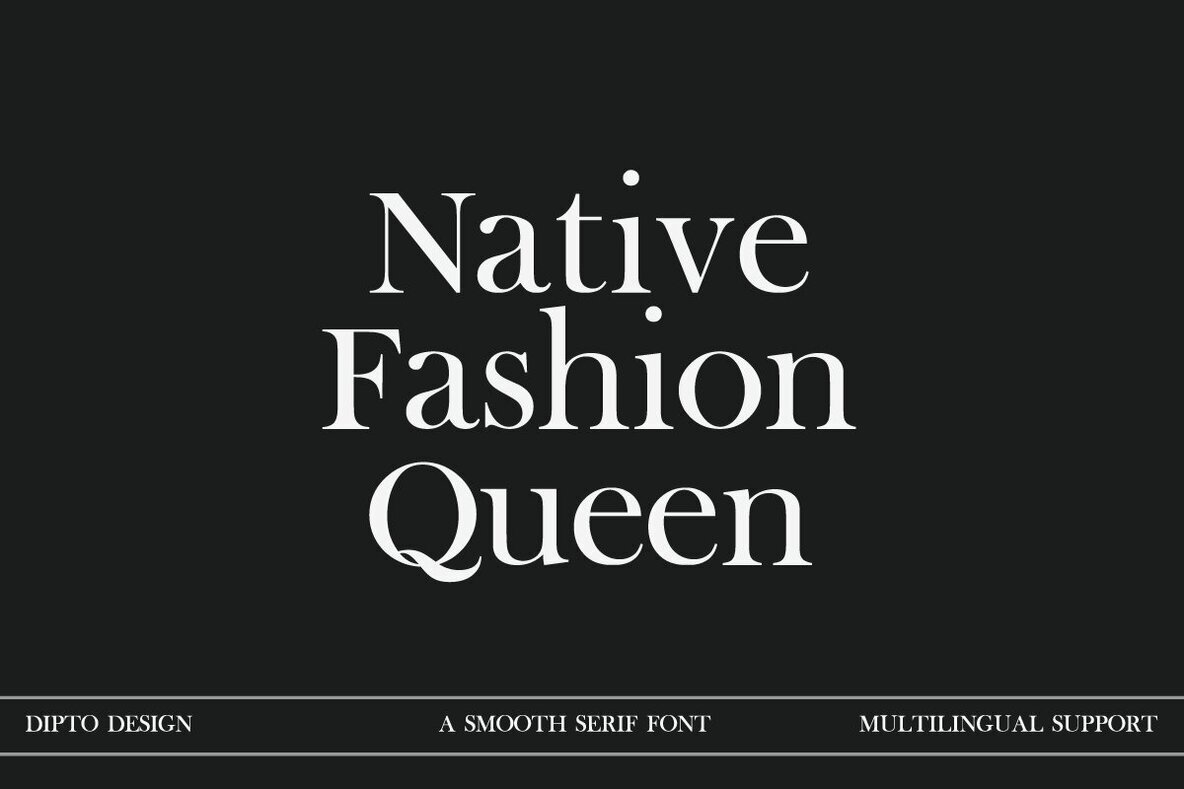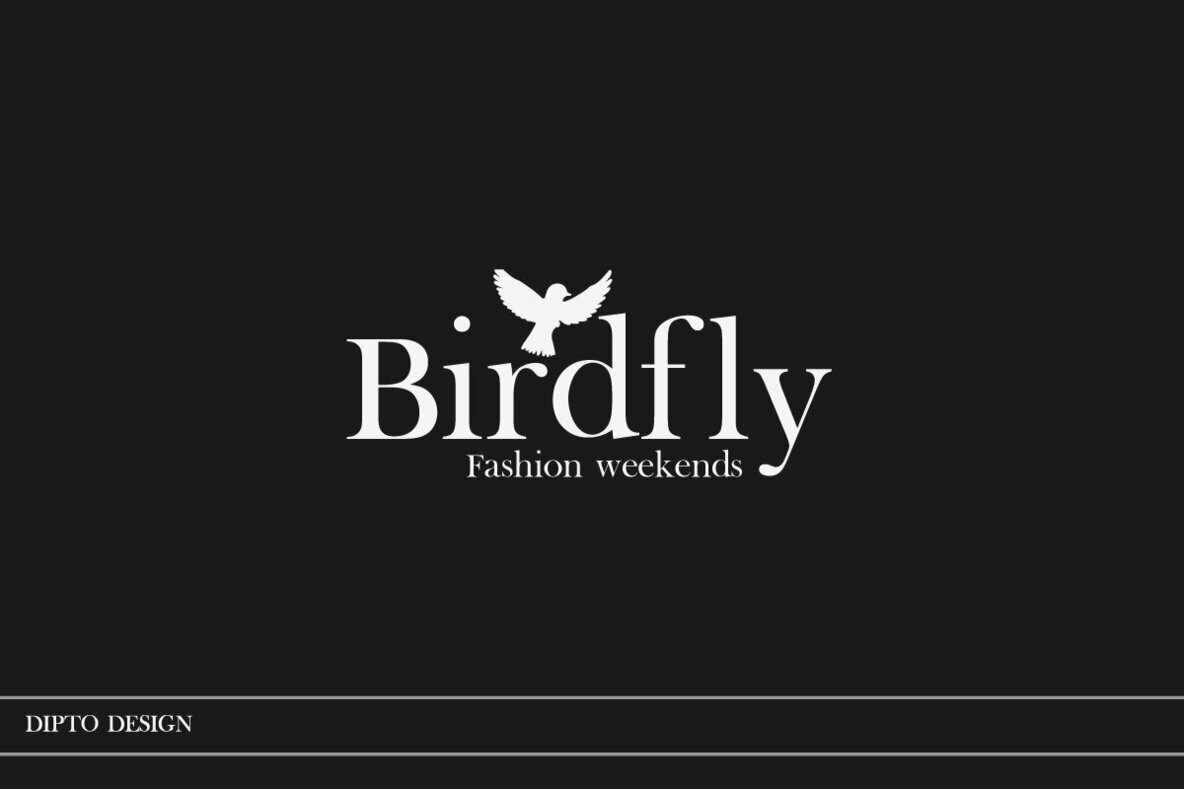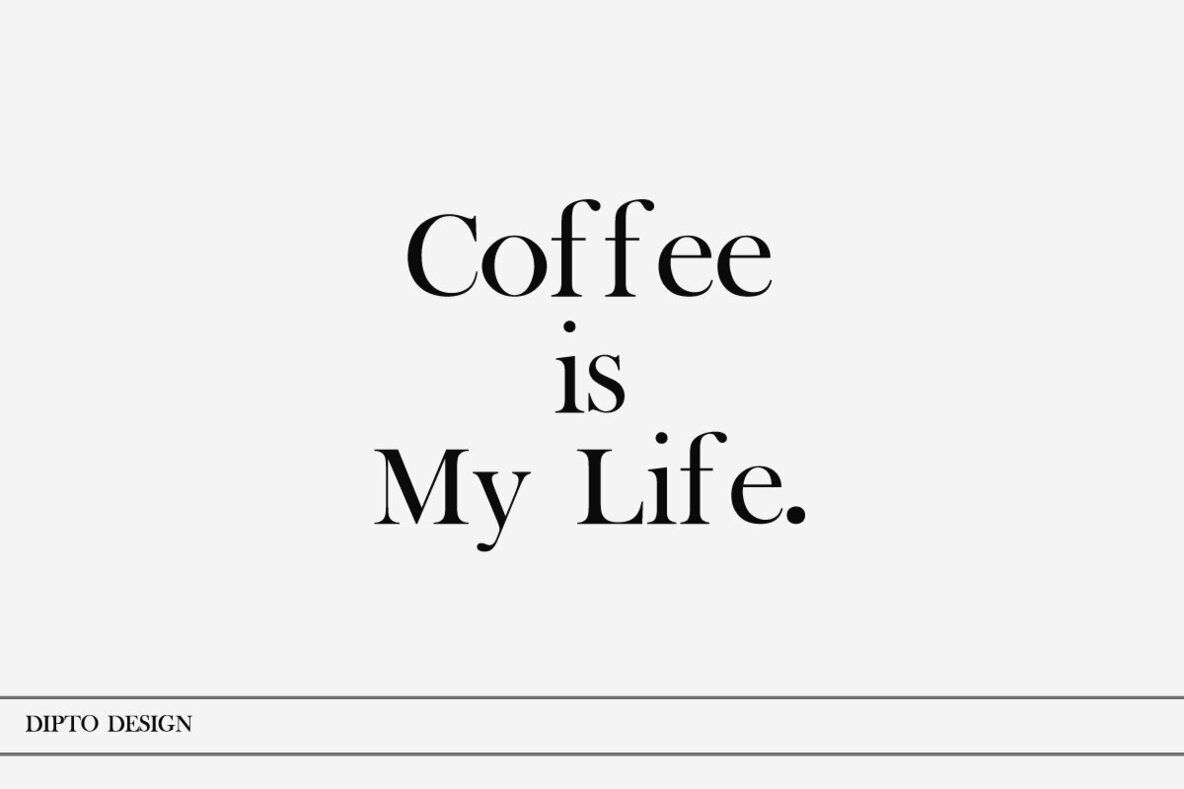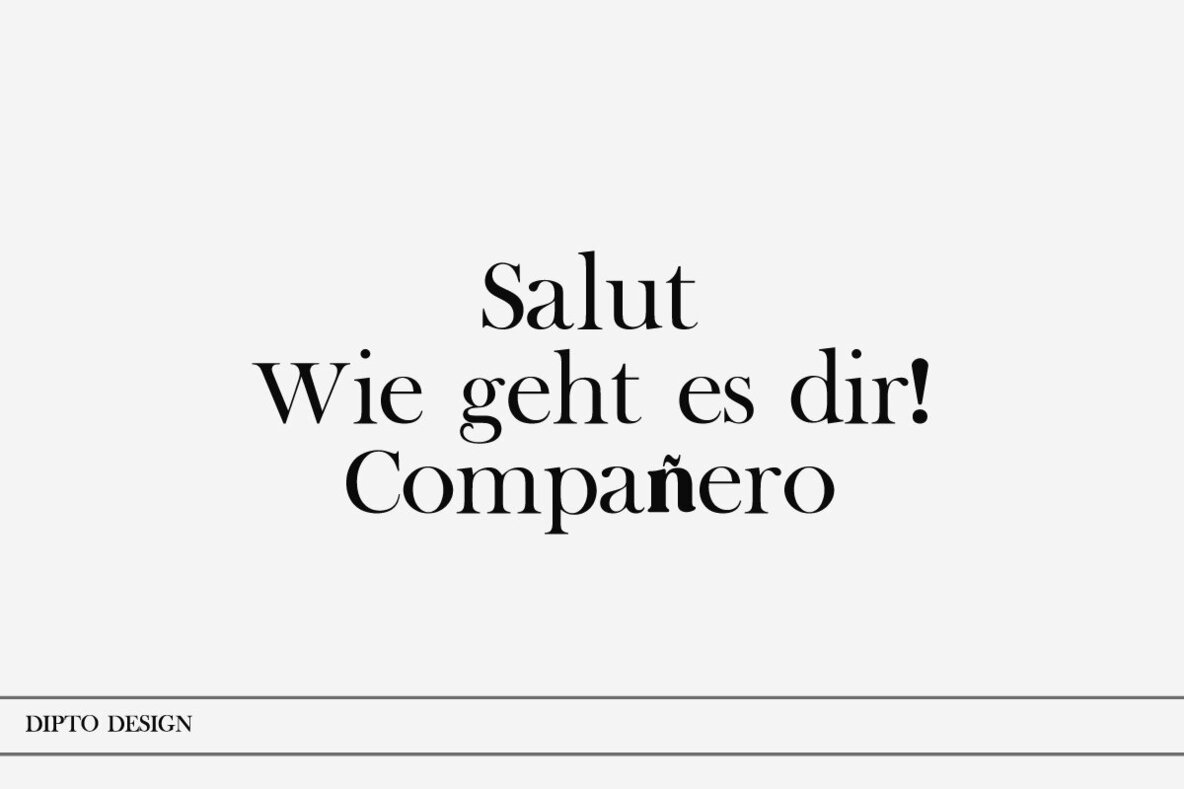
Clari Font
Clari
Meet Clari — a font where simplicity meets style. This user-friendly typeface seamlessly blends clarity with creativity, making it ideal for sleek presentations, intuitive websites, and captivating social media posts. With its modern design, Clari ensures that your message remains both clear and impactful. Perfect for projects with a winter season concept, Clari adds a distinct touch to various design endeavors. This font is incredibly easy to apply in both design and non-design programs, thanks to its Unicode (PUA) support that includes all alternates and glyphs.Clari: Simple Yet Stylish Font for Modern Designs
Easy to Use